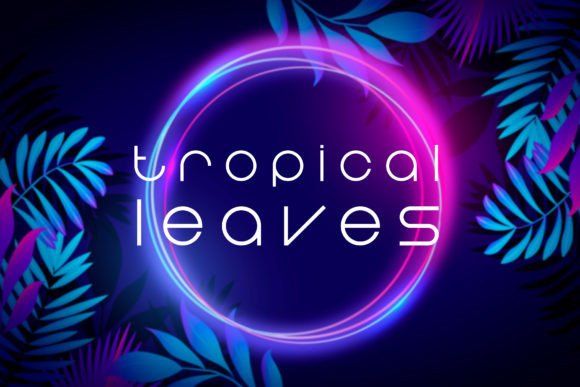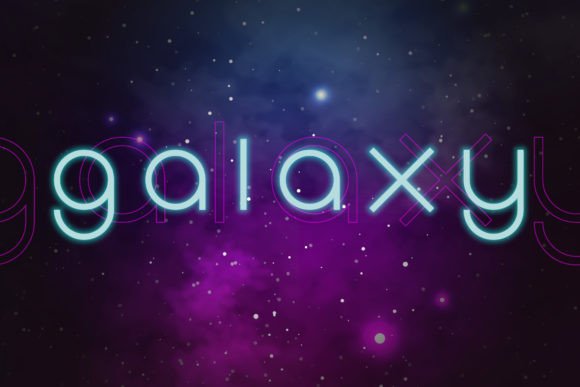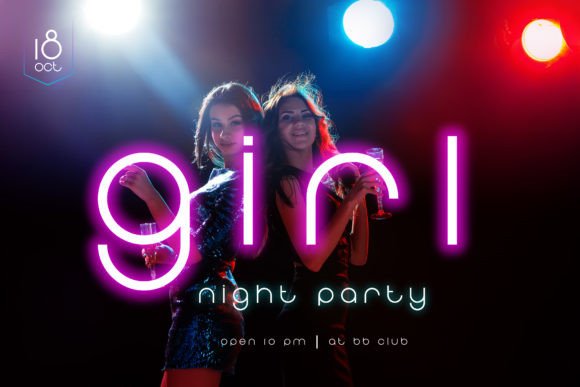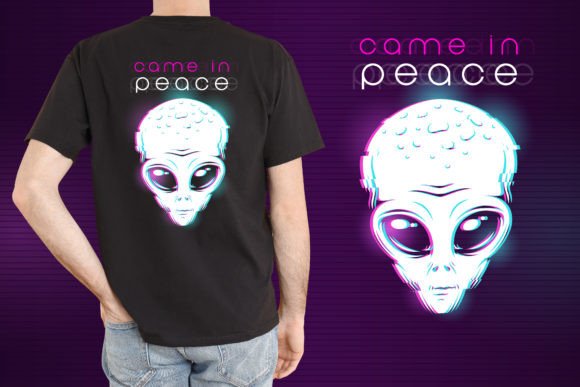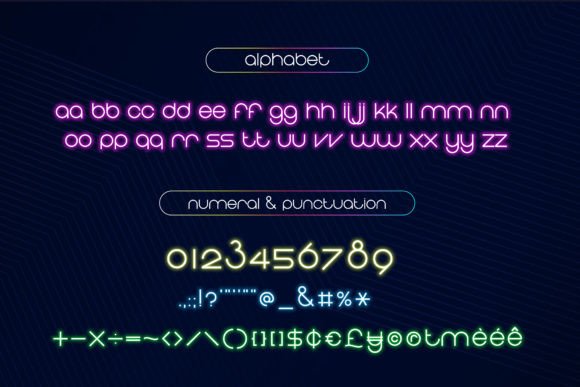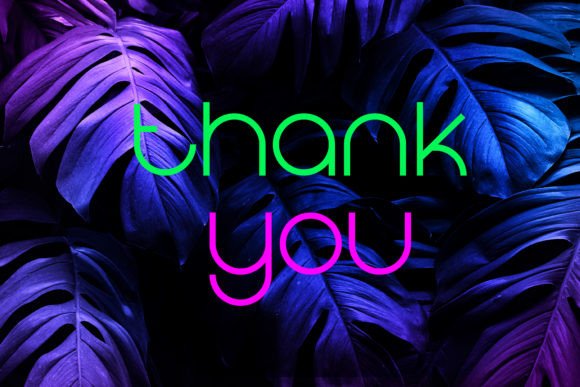
Introducing Final Font: Elevate Your Designs with a Sleek and Modern Display Font
In the world of design, fonts play a crucial role in conveying the message and aesthetic of a project. A well-chosen font can elevate your creations, making them more engaging and memorable. If you’re a designer or crafter looking for a font that combines sleekness, modernity, and expressiveness, look no further than Final Font. This expertly designed display font is poised to give your work a whimsical look, empowering you to continue pushing the boundaries of your creativity.
What is Final Font?
Final Font is a sleek and modern display font that boasts expressive characters, making it perfect for a wide range of design projects. Whether you’re working on a logo, branding materials, posters, or digital content, Final Font is designed to make a statement. Its unique blend of elegance and playfulness ensures that your creations stand out from the crowd.
Key Features of Final Font
- Sleek and Modern Design: Final Font’s clean lines and contemporary aesthetic make it an excellent choice for designers who want to add a touch of sophistication to their work.
- Expressive Characters: Each character in Final Font is carefully crafted to convey emotion and personality, allowing you to add depth and nuance to your designs.
- Whimsical Look: The font’s unique charm and character make it perfect for projects that require a touch of whimsy and playfulness.
- Versatility: Final Font is suitable for a wide range of design projects, from print materials to digital content.
Benefits of Using Final Font
By incorporating Final Font into your design workflow, you’ll enjoy several benefits, including:
- Enhanced Creativity: Final Font’s unique design and expressive characters will inspire you to experiment with new ideas and push the boundaries of your creativity.
- Consistency: The font’s sleek and modern aesthetic ensures that your designs will have a cohesive look, regardless of the project.
- Attention-Grabbing: Final Font’s bold and expressive characters are designed to grab attention, making it perfect for projects that require a strong visual impact.
How to Use Final Font in Your Designs